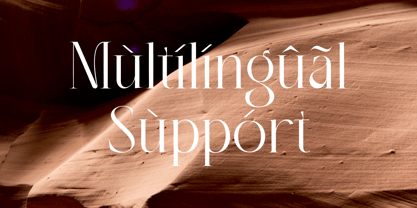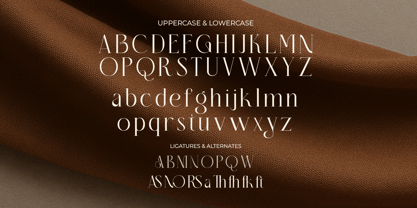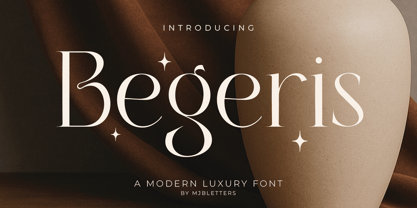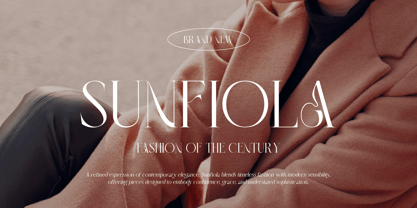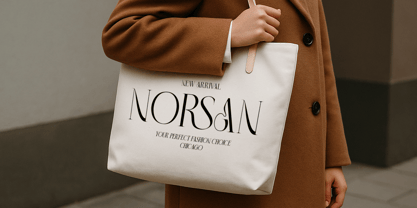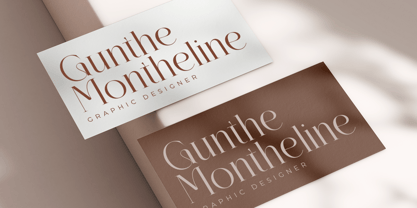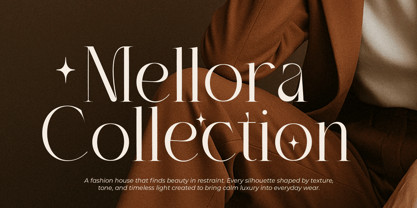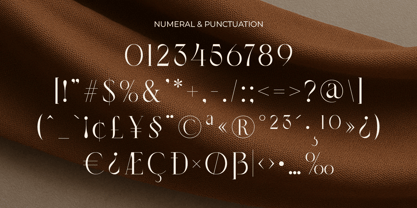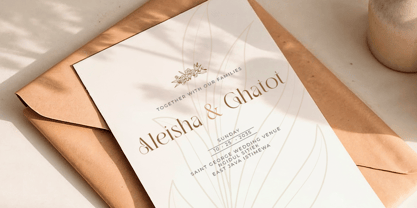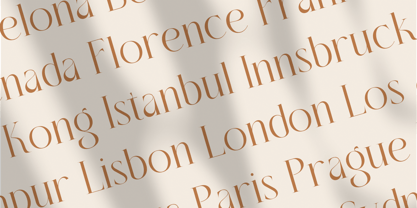
Begeris
by MJB Letters
The Begeris Font Family was designed by Muhammad Mujibulloh and published by MJB Letters. Begeris contains 2 styles and family package options. More about this family
Introduce elegance and sophistication to your creative projects with Begeris, a modern luxury serif font designed to bring refinement to every visual composition. With its graceful curves, high-end aesthetic, and balanced contrast, Begeris delivers a premium look that is perfect for designers seeking a stylish, polished, and contemporary serif typeface. Inspired by boutique fashion brands and editorial layouts, Begeris blends classic serif charm with a clean modern touch. Each letterform is carefully crafted to create a smooth reading experience while maintaining an upscale, exclusive feel—ideal for logos, magazine titles, product packaging, wedding invitations, beauty labels, and social media content. Equipped with elegant ligatures, full character sets, and multilingual support, Begeris gives you the flexibility needed to build luxurious and cohesive visual identities. Elevate your designs with a typeface that radiates confidence, clarity, and sophistication. Begeris is your perfect companion for premium branding and artistic expression.